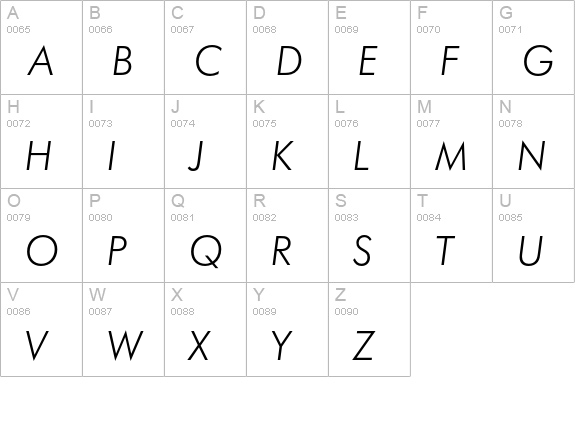
Futura Light Italic Font Details
Futura Light Italic is a refined, elegant, italic variant in the Futura typeface family \xE2\x80\x94 well suited to elegant body text, refined sub-headings, and luxury branding.
Futura Light Italic is a sleek and elegant font that exudes sophistication and modernity. Its delicate slant adds a touch of personality and style to any design project. This versatile typeface is perfect for conveying a sense of sophistication and professionalism while maintaining a contemporary edge. What's even better is that Futura Light Italic is available for free download at FontsMarket.com, making it accessible to designers and creatives alike. Whether you're working on a branding project, editorial layout, or website design, this font is sure to elevate your work with its clean lines and timeless appeal. Don't miss out on the opportunity to add this beautiful typeface to your collection today!